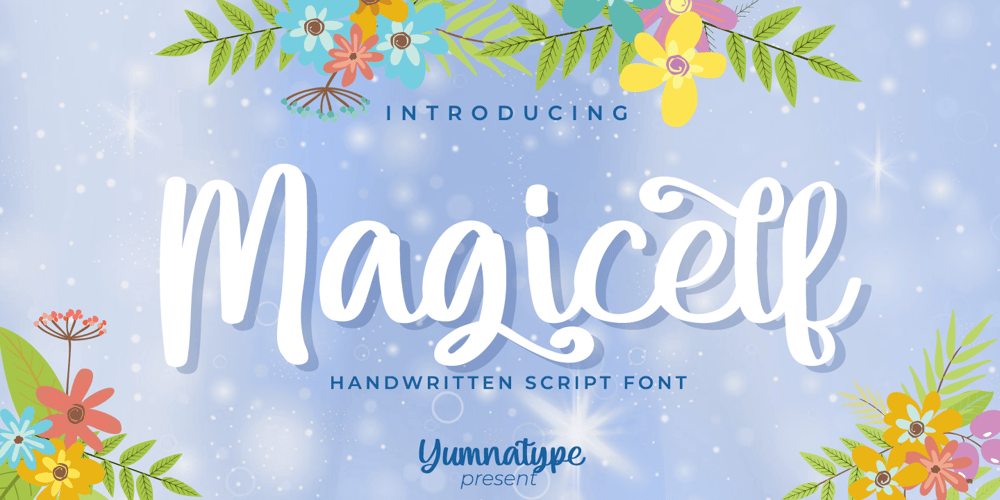
Magicelf
Magicelf font
Magicelf Font Family was designed by Donis Miftahudin and published by Yumna Type. Magicelf contains 1 styles and family package options. Magicelf is a elegant handwritten font. Made for any professional project branding. It is the best for logos, branding and quotes. Every letter has a unique and beautiful touch.Features: Standard Ligatures Swashes Alternates PUA Encoded Multilingual Support Numerals and Punctuation by Yumnatype